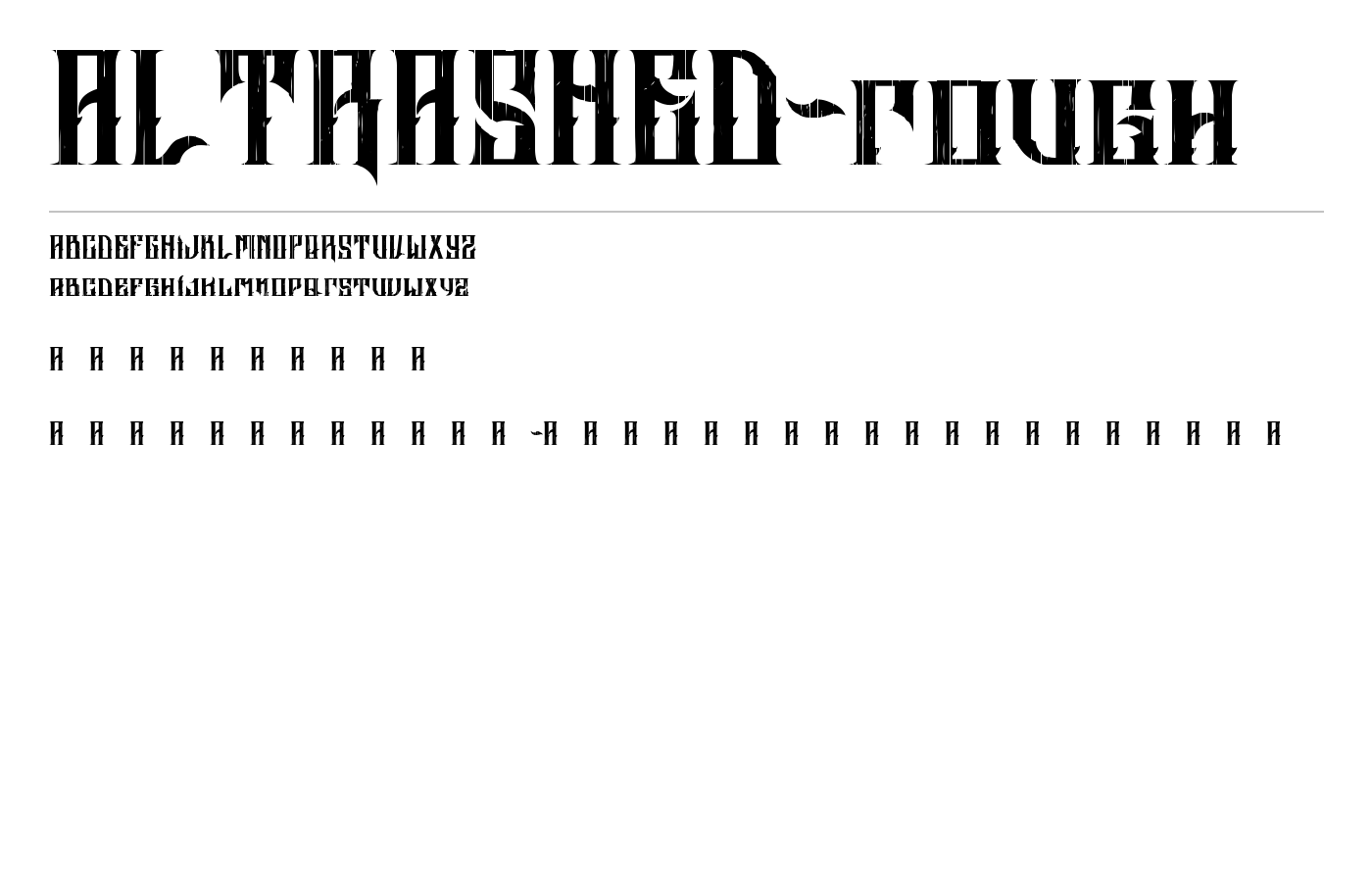
ALTRASHED-rough is a bold, condensed serif font with a distressed, textured look that gives it a striking, edgy personality. Its tall, narrow letterforms combined with rough, worn details make it perfect for dramatic headlines, posters, or branding that seeks a vintage yet rebellious vibe. This font works well where attention-grabbing style and a gritty, artistic feel are desired.
ALTRASHED-rough Font
About ALTRASHED-rough Font